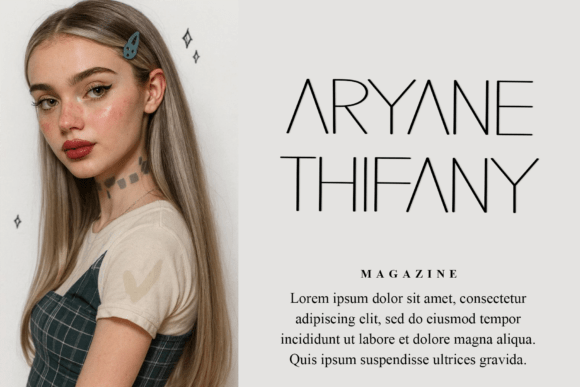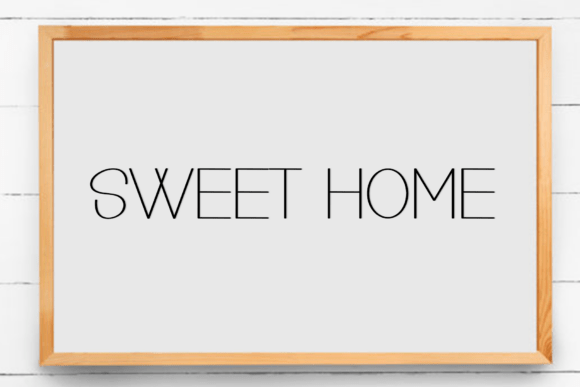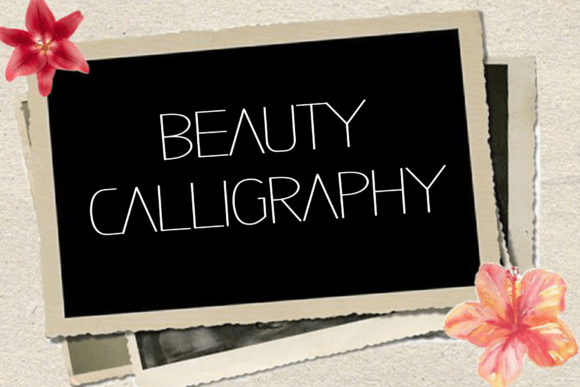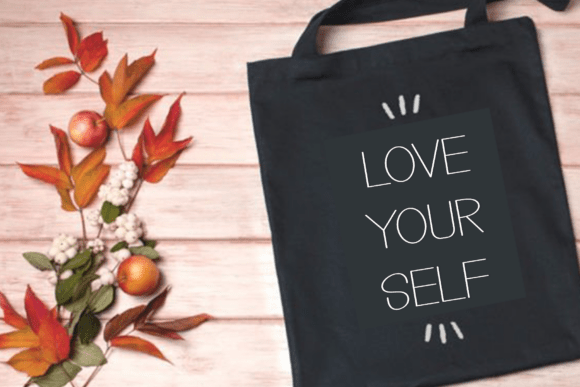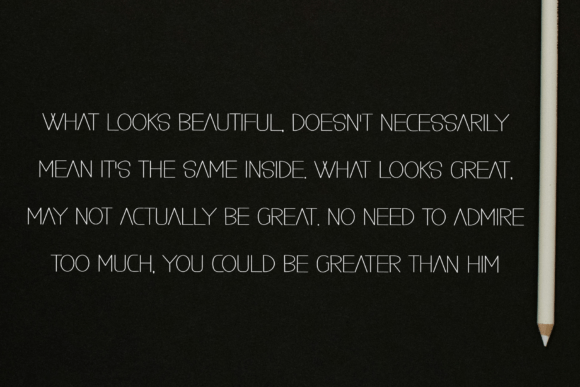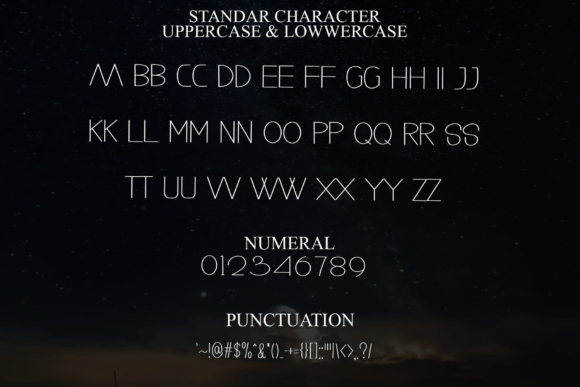
Introduction to Minimalist Note Font
Have you ever stared at a blank canvas, feeling the weight of creativity on your shoulders, only to have a spark of inspiration strike when you least expect it? For designers, these moments are the stuff of dreams – a chance to breathe life into a project, to make it truly unique and special. And when it comes to creating a design that’s both visually appealing and emotionally resonant, the right font can make all the difference.
That’s where the Minimalist Note Font comes in – a charming, hand-drawn font that exudes warmth and friendliness. Its round, playful strokes create a relaxed and approachable feel, perfect for personal projects, invitations, and social media graphics. Whether you’re working on a creative project or simply need a design resource that adds a touch of whimsy to your work, this font is sure to deliver.
Key Features of Minimalist Note Font
- High-quality font with a clean and minimalist design, perfect for creative projects and presentations.
- Comes with a transparent background, allowing for seamless integration with any design resource.
- Designed to be highly legible, with a clear and readable font size, making it ideal for presentations, notes, and creative writing.
- Resolution-independent, ensuring that the font remains crisp and clear at any size or resolution, from 72 dpi to 300 dpi.
- Perfect for designers, artists, and writers looking for a simple yet effective font to enhance their creative project.
Honest Review: Minimalist Note Font
I recently came across the Minimalist Note Font, and I was excited to dive in and see what it had to offer. As a designer, I’m always on the lookout for high-quality design resources that can help elevate my creative projects.
Here are some things that work well with the Minimalist Note Font:
- ✨ Sleek and modern design
- ✨ High-quality glyphs and characters
- ✨ Transparent background for easy overlaying
- ⚠️ Limited character set (only includes a few characters and symbols)
- ⚠️ Not suitable for complex text-based projects (e.g. novels, articles)
Overall, I’m impressed with the Minimalist Note Font. It’s a great design resource for anyone looking to add a touch of minimalism to their creative project. While it may not be suitable for every project, it’s definitely worth checking out if you’re looking for a high-quality, free font.
Tips and Use Cases
Use the Minimalist Note Font for:
• Creating visually appealing social media graphics and presentations
• Designing high-quality documents and reports
• Adding a touch of elegance to your website and blog content
For the best results, experiment with different font sizes, colors, and styles to find the perfect combination for your creative project.